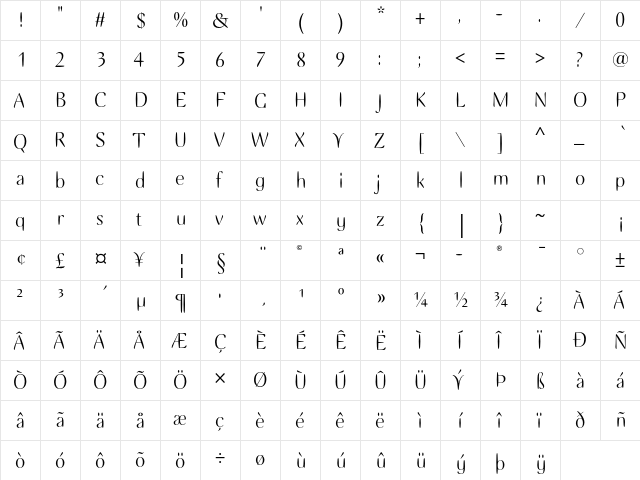
Ellipse ITC Std Regular
| Designer | Jean-Renaud Cuaz |
Design Context for Ellipse ITC Std Typeface
Ellipse ITC Std offers clean, dependable letterforms without strong stylistic allegiance, making it a practical choice for designers who need flexibility.